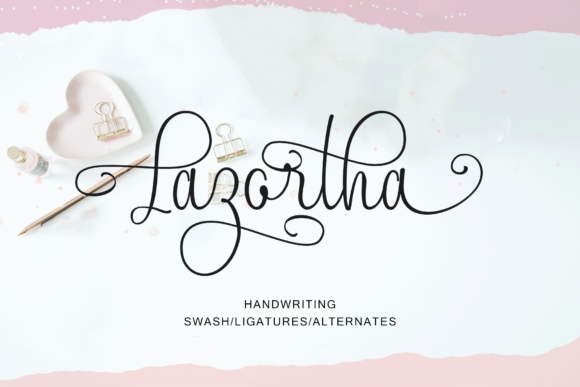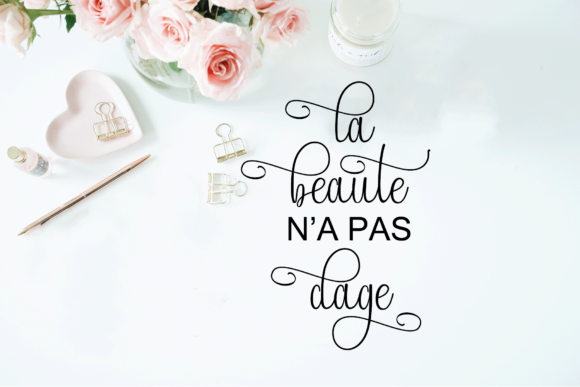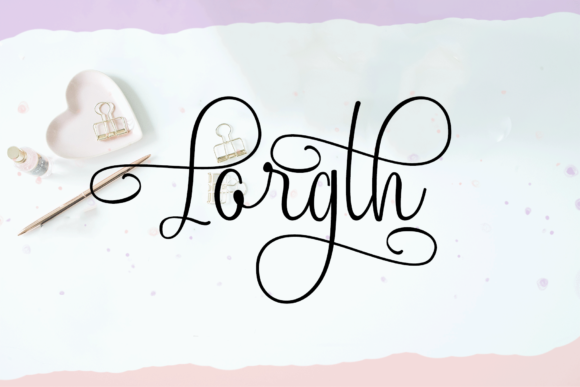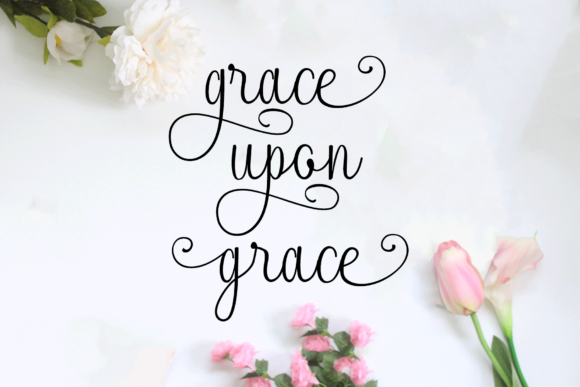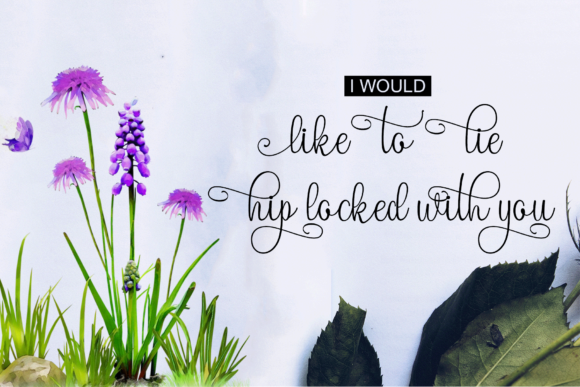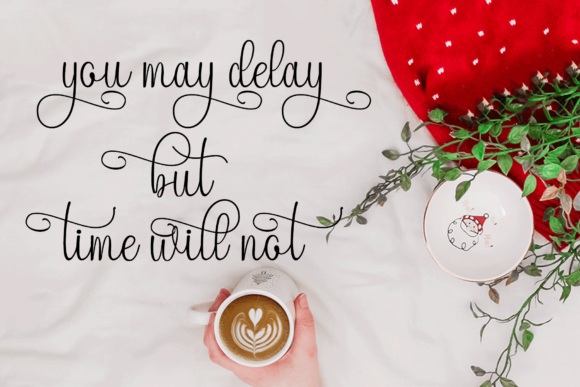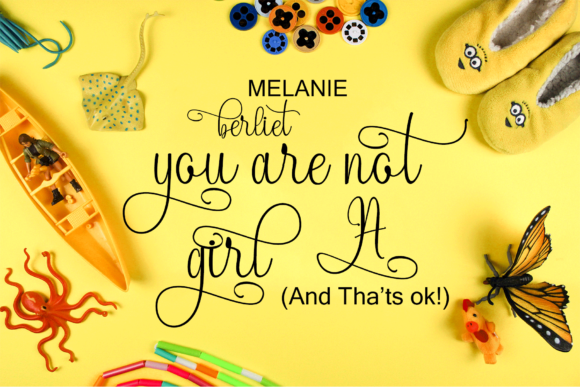
HomeScript FontsLazortha Font Script Fonts Lazortha Font FacebookXPinterestWhatsApp Lazortha Font Poster 2 Lazortha Font Poster 3 Lazortha Font Poster 4 Lazortha Font Poster 5 Lazortha Font Poster 6 Lazortha Font Poster 7 About Lazortha Font Lazortha is a modern and unique handwritten font. Get inspired by its swashy look! DOWNLOAD NOW People also explored Gunslinger Font Magnify Font Font Wave Font Love Money Font Nutmeg Script Font Hopes Bright Caramel Pancake Font Lamthong Font Vinttae Font 324 0 TagsLazortha Font Previous articleClassico FontNext articleBrucke Font LEAVE A REPLY Cancel reply Comment: Please enter your comment! Name:* Please enter your name here Email:* You have entered an incorrect email address! Please enter your email address here Website: Save my name, email, and website in this browser for the next time I comment. Personal Use Free Imelda Personal Use Free Read more about this font Eigha Personal Use Free Read more about this font Mama Personal Use Free Read more about this font Awesome Snowflakes Font Personal Use Free Read more about this font BLOG Top 7 Google Fonts Alternatives for Faster and Privacy-Friendly Web Design (2025) Top 7 Google Fonts Alternatives for Faster and Privacy-Friendly Web Design (2025) When it comes to web typography, Google Fonts has long been the go-to... How to Cut Any Font on Cricut: Convert a Font to SVG (Free) 5 Fonts That Will Dominate Design Trends in 2026 To increase your work productivity, choose the most readable fonts.